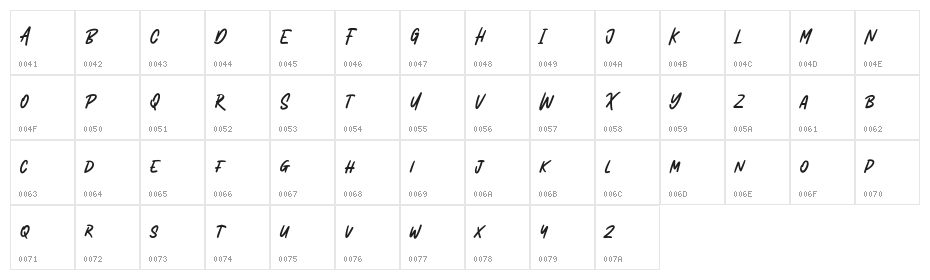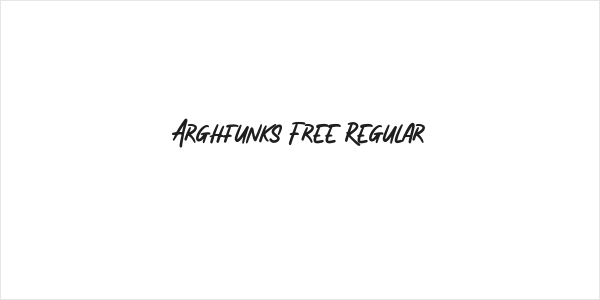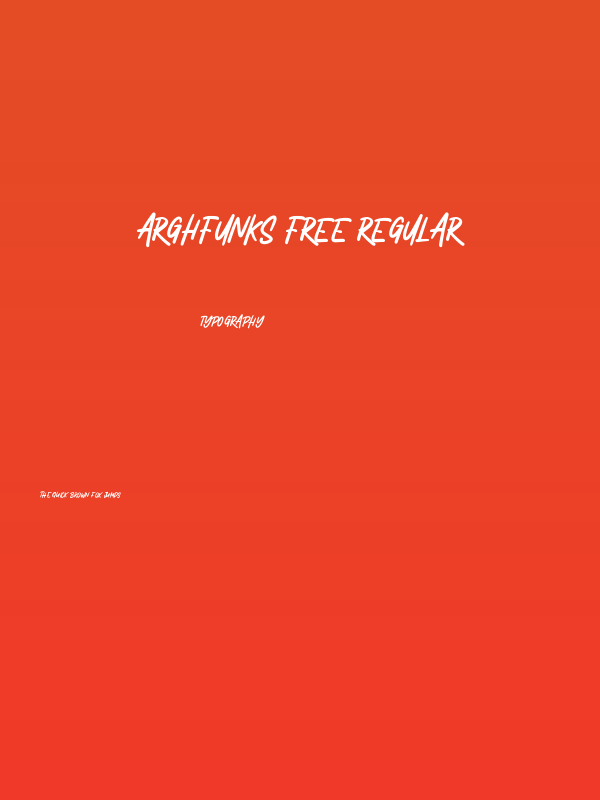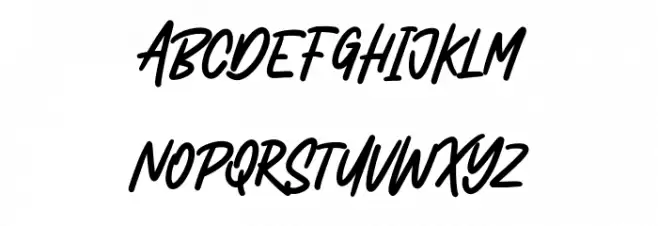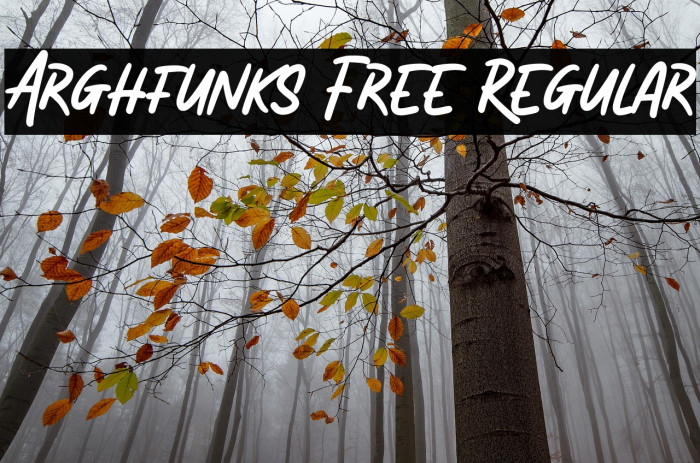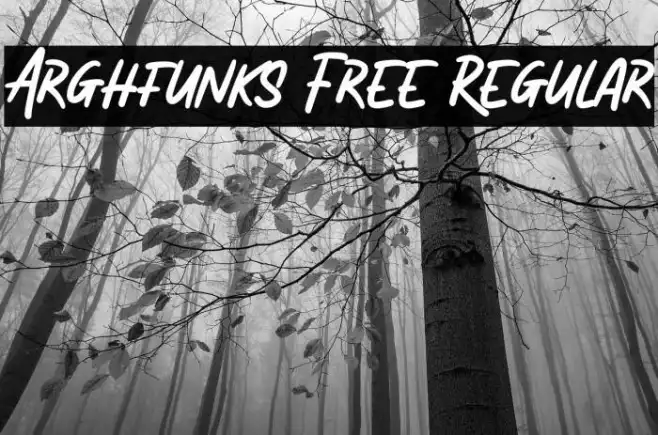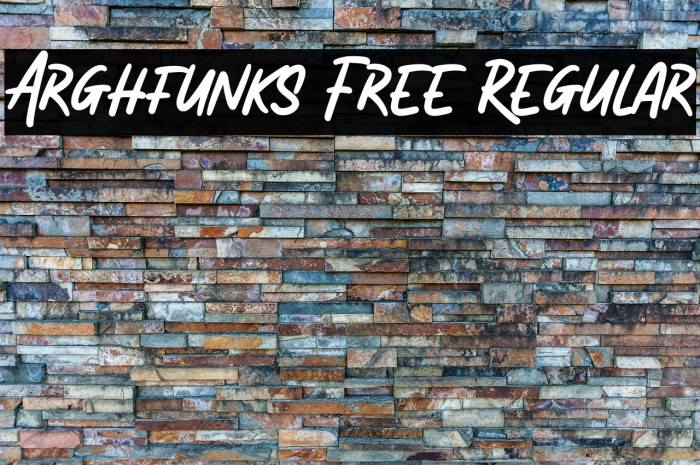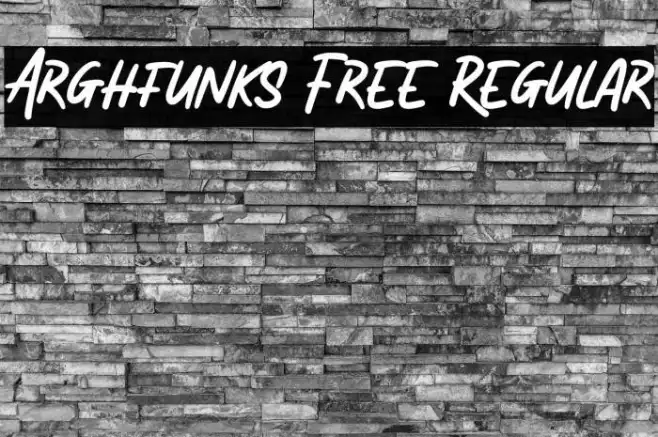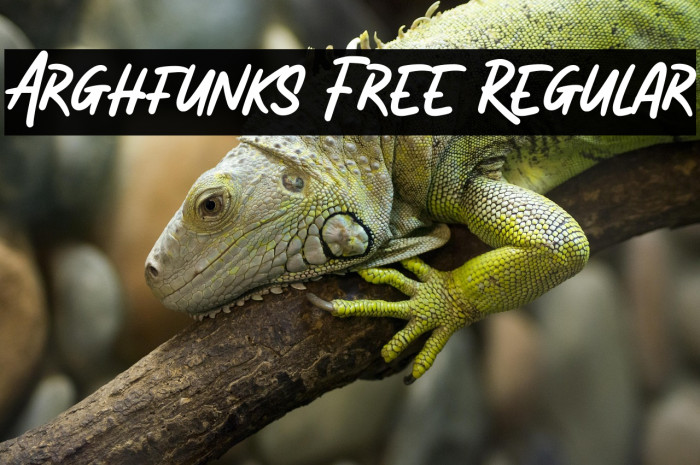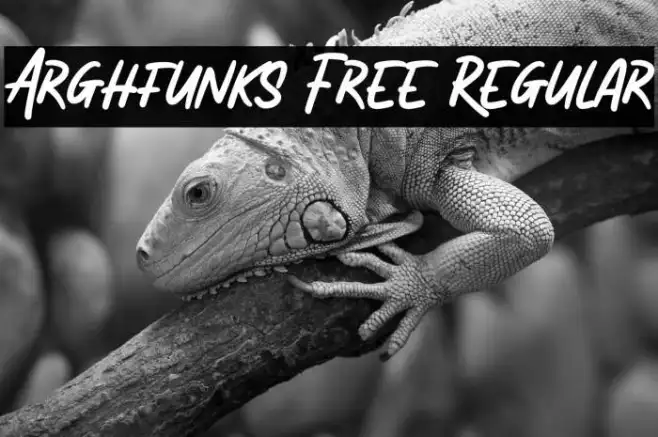
Arghfunks Free Regular Font
Arghfunks Free Regular Description
This font exudes a lively and dynamic energy with its bold, cursive style. The letters are crafted with a smooth, flowing motion that gives a sense of movement and rhythm. Each character is slightly slanted, enhancing the handwritten feel and adding a touch of elegance. The strokes are thick and consistent, providing a strong visual impact. The overall appearance is both modern and playful, making it suitable for creative and informal applications. The spacing between characters is balanced, ensuring readability while maintaining the font's expressive nature.
| Use Case | Logos, Headlines, Posters |
| Proposed Projects | Ideal for branding, posters, social media graphics, and creative projects that require a personal touch. |